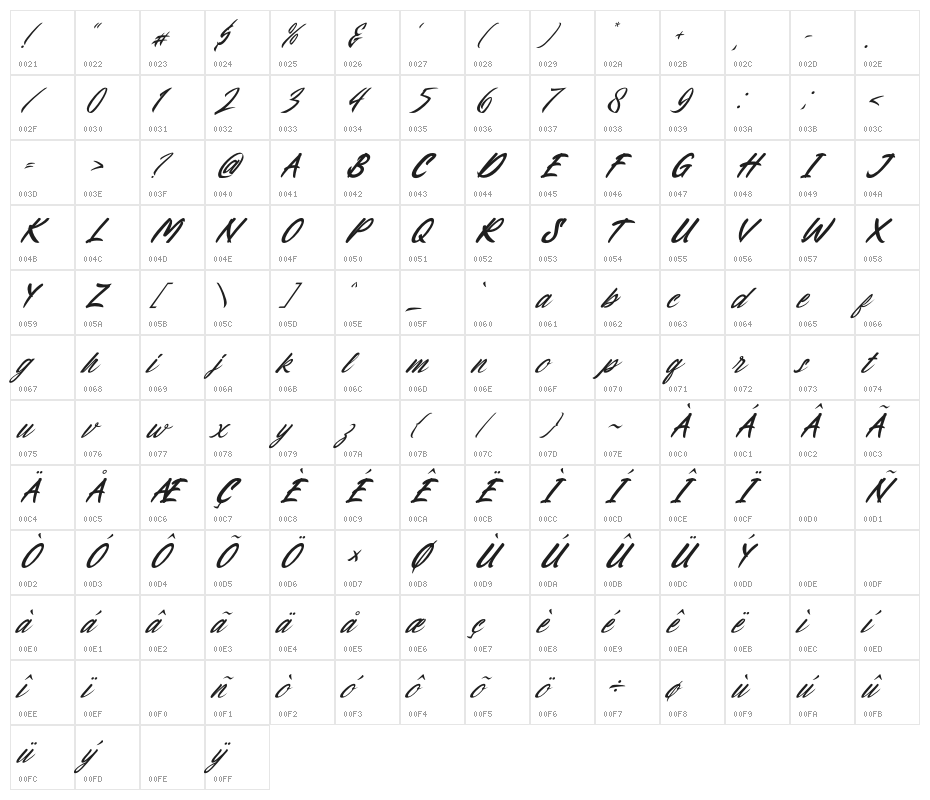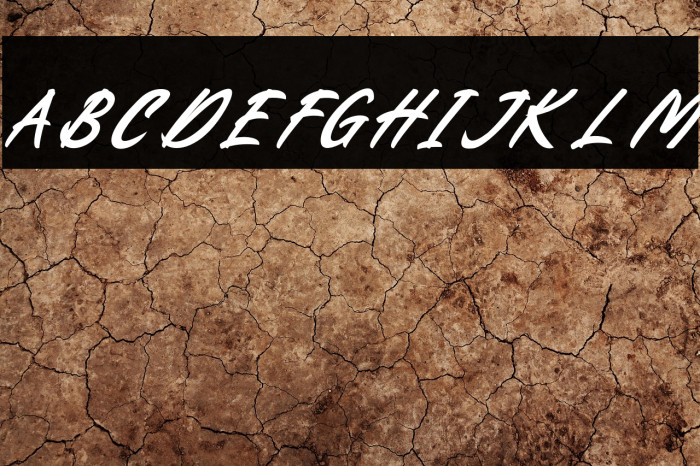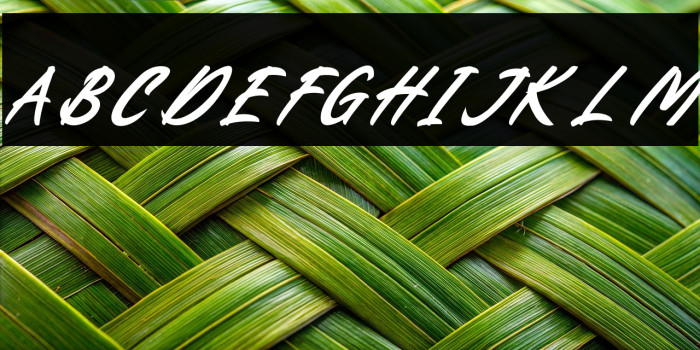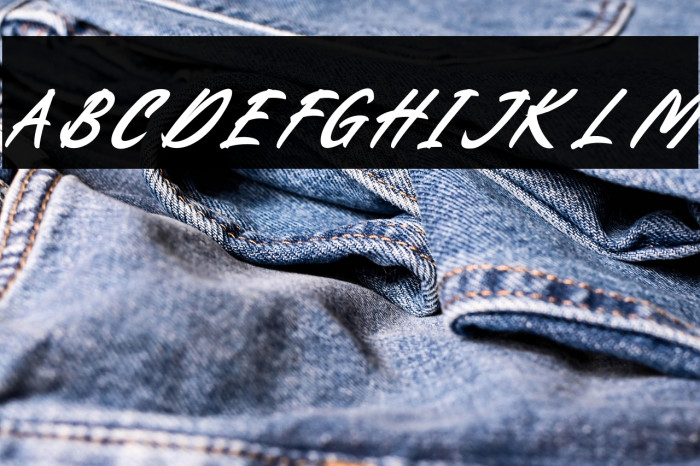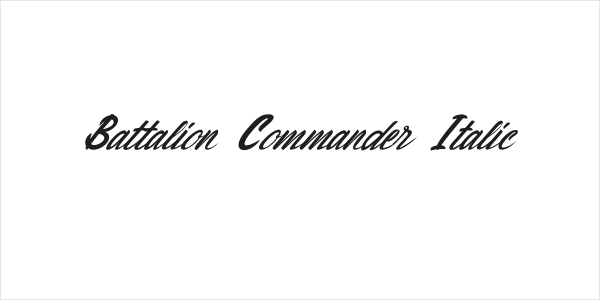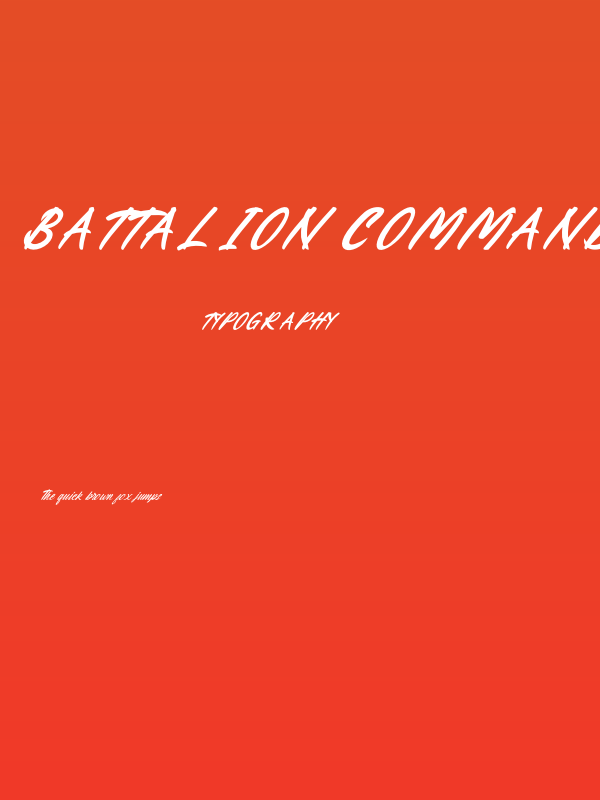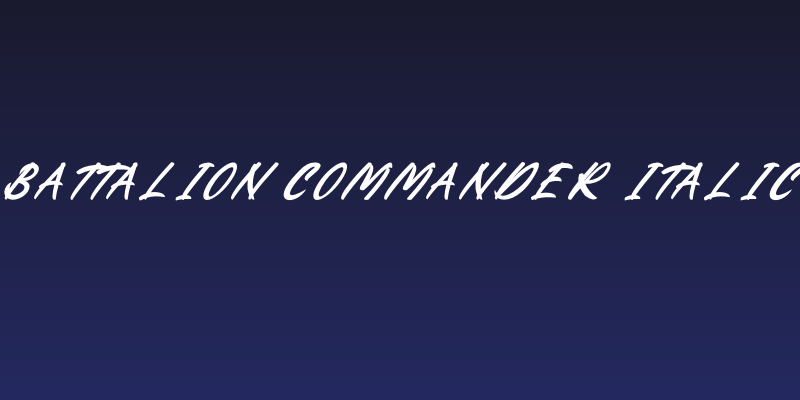
Battalion Commander Italic Font
Battalion Commander Italic Description
This font exudes a dynamic and energetic style with its italicized, cursive script. The characters are fluid and connected, giving a sense of movement and elegance. The strokes are bold and confident, with a slight slant that enhances the italic nature. The uppercase letters are tall and commanding, while the lowercase letters maintain a consistent flow. Numbers and special characters follow the same stylistic cues, ensuring uniformity across all elements. This font is ideal for projects that require a touch of sophistication and flair.
| Proposed Projects | Ideal for wedding invitations, elegant branding, and artistic posters. |